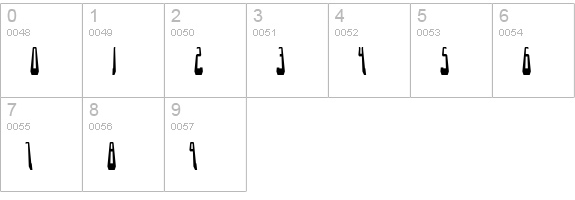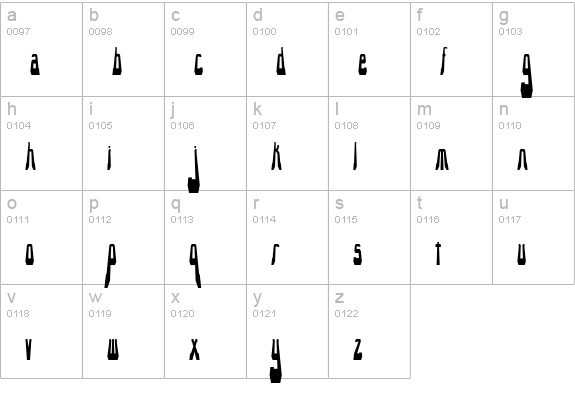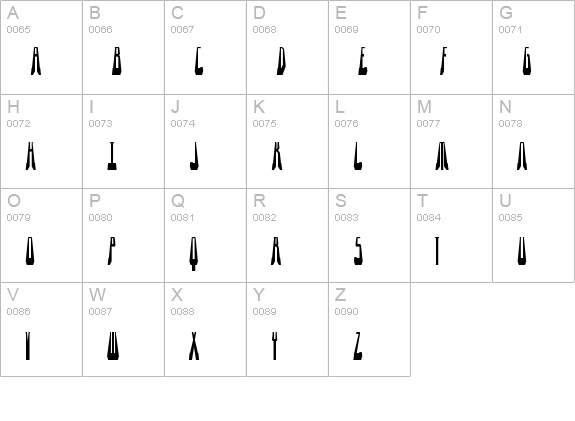
10.15 Saturday Night -BRK- Font Details
Introducing 10.15 Saturday Night -BRK- font, a stylish and modern typeface perfect for adding a touch of sophistication to your designs. This font features sleek lines and a contemporary aesthetic, making it ideal for a wide range of projects. Whether you're designing a flyer, poster, logo, or any other creative endeavor, 10.15 Saturday Night -BRK- font is sure to make a statement. Best of all, this font is available for free download at FontsMarket.com. Simply visit the website to access this versatile typeface and enhance your design projects with its professional and elegant look. Don't miss out on the opportunity to elevate your designs with 10.15 Saturday Night -BRK- font - download it today and bring your creative visions to life!